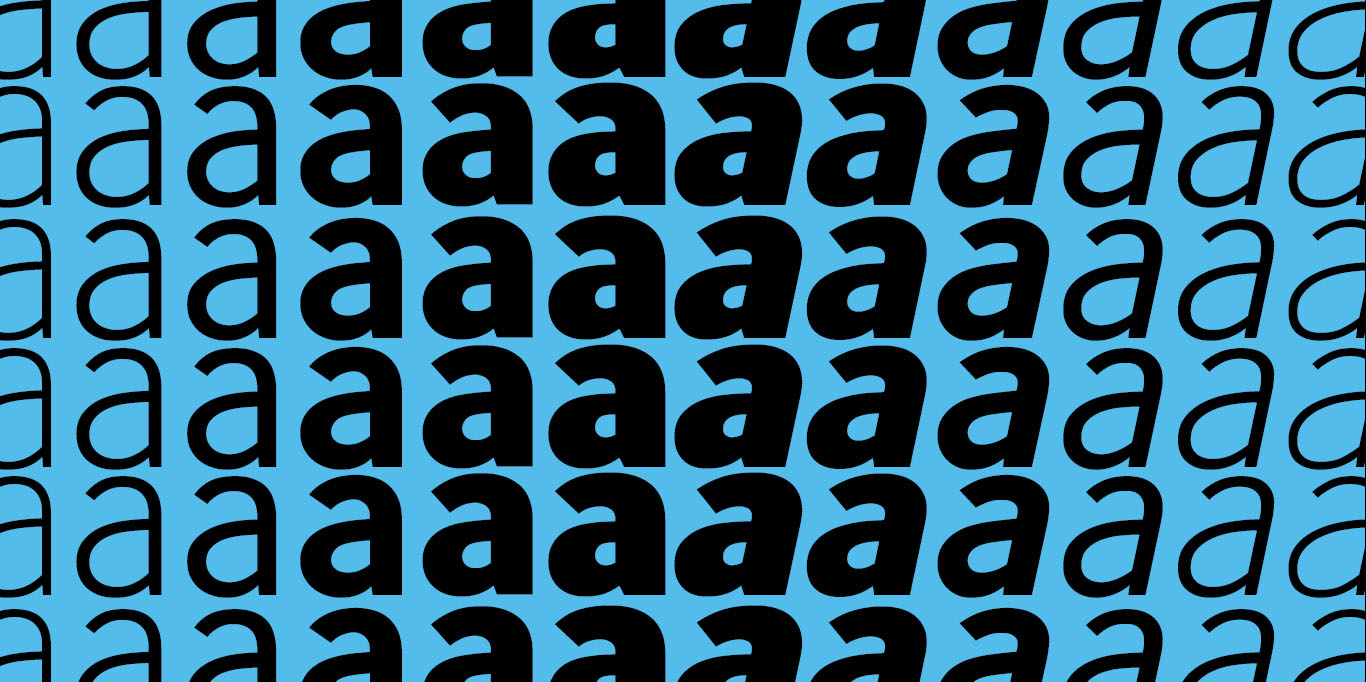
InterFace Font
InterFace Font is perfect for user interface design, mobile app development, web application interfaces, digital dashboard design, software interface layouts, UX/UI design projects, tech product branding, interactive media presentations, digital platform communications, screen-based typography, modern website headers, and digital projects that require optimized, interface-focused typography with screen readability and digital functionality.
What makes InterFace Font so exciting is its digital-native optimization and interface-focused functionality that embodies the essential requirements of modern user experience design and screen-based communication. This typeface features carefully engineered letterforms with pixel-perfect clarity and optimal screen rendering that ensures maximum legibility across all digital devices and platforms. The font's interface character and digital appeal make it perfect for tech companies and digital-first organizations that want to communicate innovation, usability, and the kind of seamless user experience that defines excellent interface design and digital interaction.
InterFace Font typically comes in multiple weights and styles including Thin, Light, Regular, Medium, Semi-Bold, Bold, and Black variations. Many versions also include optimized hinting, extended Unicode support, and interface-specific symbols that enhance the font's digital functionality and provide designers with comprehensive tools for creating user-friendly, digitally-optimized typography systems that perform flawlessly across devices.
Whether you're designing mobile applications, web interfaces, or digital platform communications, InterFace Font delivers exceptional screen performance and digital authenticity that connects with users who demand seamless, accessible digital experiences. Its optimized rendering works exceptionally well across all screen sizes and resolutions, maintaining perfect legibility while supporting the kind of interface hierarchy that modern digital products require.
The expertly engineered letterforms of InterFace Font showcase the ultimate expression of interface typography and digital design principles. Each character has been optimized for pixel-perfect rendering and maximum screen legibility, ensuring that your digital communications remain crystal-clear and user-friendly across all devices and platforms where modern interface design demands absolute clarity.